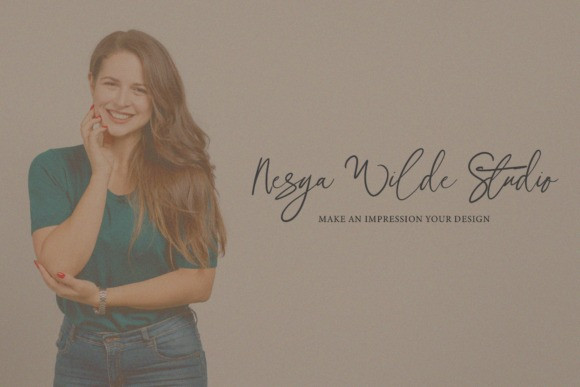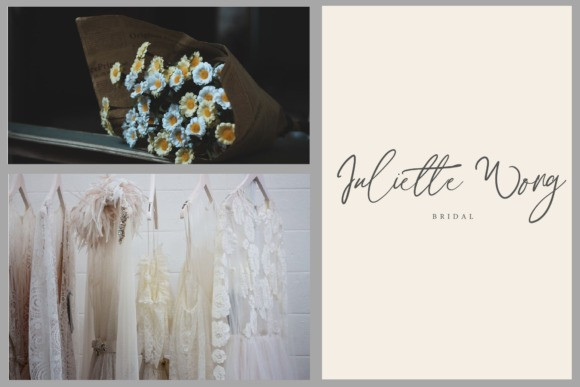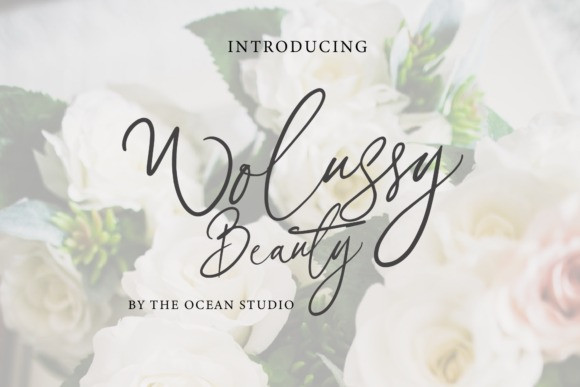
Wolussy Beauty Script Font
Wolussy Beauty is a magical handwritten font carefully created with a touch of elegance. THis font is the perfect font for making original and outstanding designs.